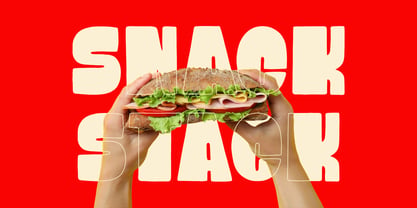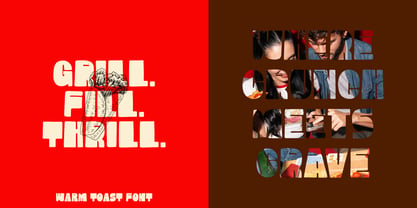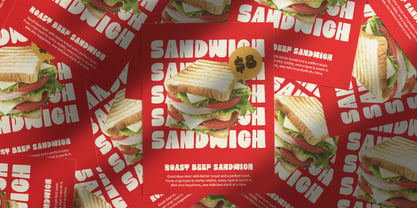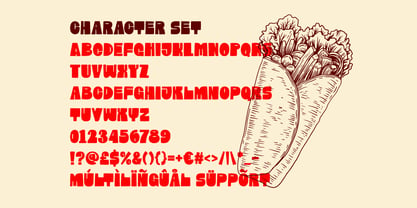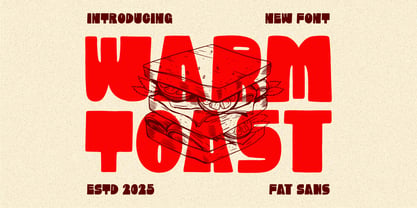
Warm Toast
by Shanaf
The Warm Toast Font Family was designed by Yesie Erma Yunita and published by Shanaf. Warm Toast contains 1 styles. More about this family
Warm Toast Playful Fat Sans brings a fresh mix of bold charm and fun character. Its thick, rounded shapes create a soft and friendly tone that stands out with confidence. The letters carry a compact height with heavy strokes that feel sturdy and expressive. Each character shows subtle quirks that add personality without harming clarity. This design gives a warm and energetic mood that works well for creative branding. The wide structure and tight curves make every word feel full, lively, and easy to notice. Warm Toast Playful Fat Sans uses simple forms that keep the rhythm smooth and the message clear. This font works beautifully for logo design, packaging, posters, headlines, and food-related branding. Its chunky style brings strong visibility in short text and display work. The playful weight makes it ideal for fun campaigns, social media graphics, and business projects that aim for a bold identity. It also fits crafting, invitations, stickers, book covers, and magazine layouts. Designers gain a typeface that supports both expressive concepts and clear communication. The balance of thickness and clean geometry keeps the style attractive in many settings. With its confident shapes and friendly attitude, this font adds flavor and charm to every design.
Designers: Yesie Erma Yunita
Foundry: Shanaf